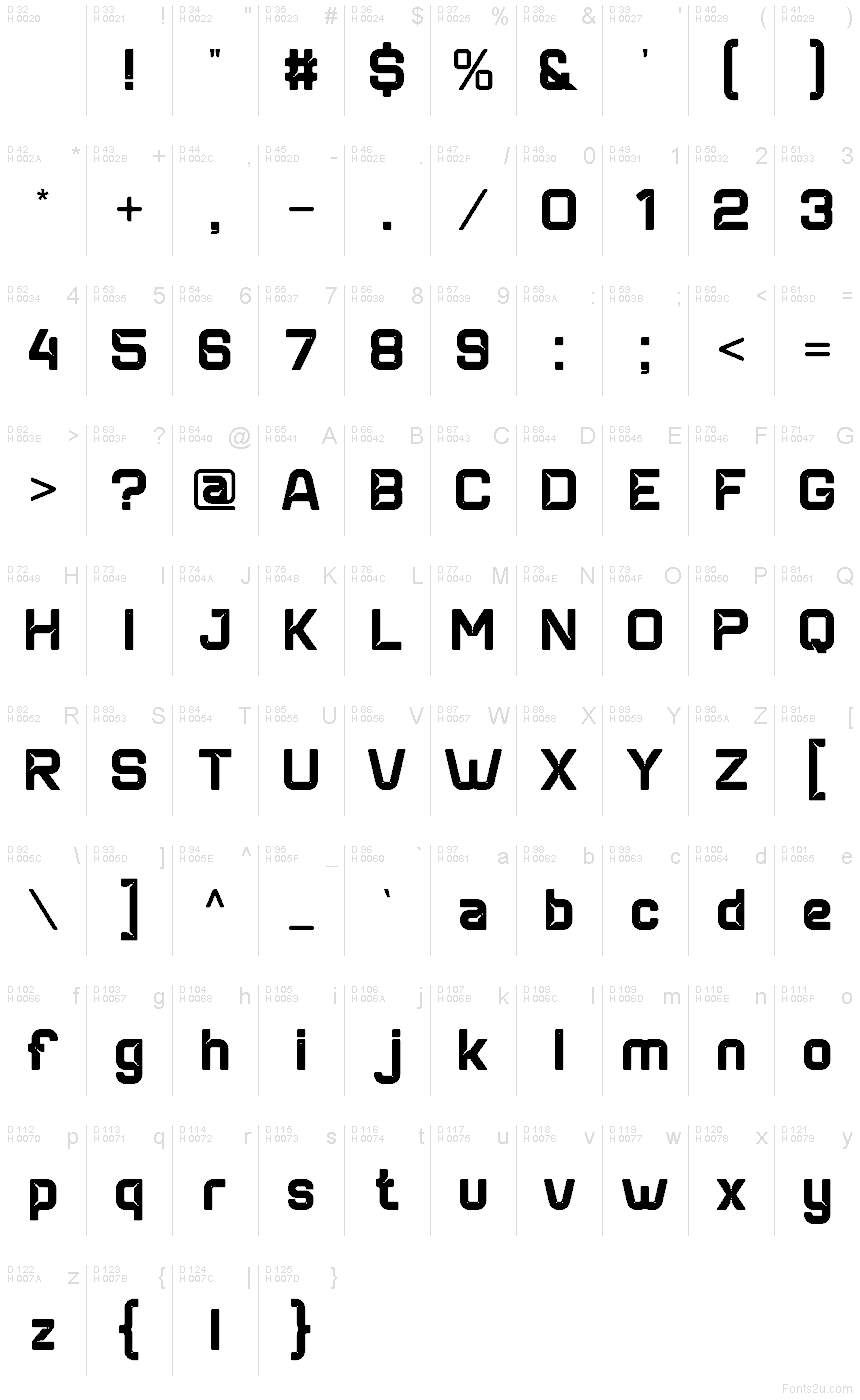
Arceo Regular
Arceo font by Ermedia Studio is a free futuristic display font. Built from chunky, rounded rectangles with crisp internal cutaways, it balances a high-tech vibe with a friendly, soft-touch finish. The rhythm feels modular and steady, so headlines lock up cleanly while still flashing a bit of sci‑fi flair.
Using Arceo, your titles snap on esports logos, sci‑fi posters, gadget packaging, tech event flyers, UI headers, and YouTube thumbnails. The generous curves stay readable at distance, while the squared counters add a mechanical edge that feels current—not cold. For contrast, pair this free font’s bold forms with a light, neutral sans in body copy and keep tracking tight for maximum impact.